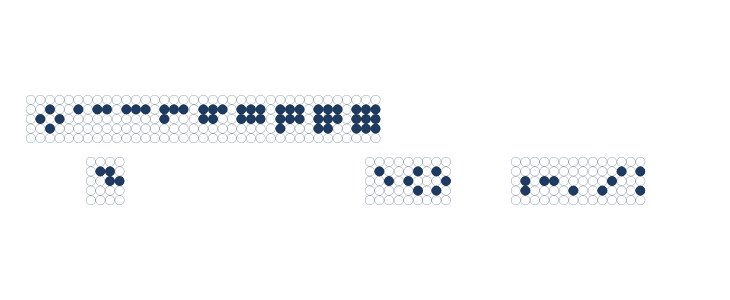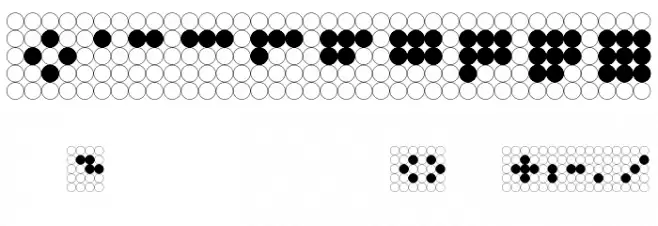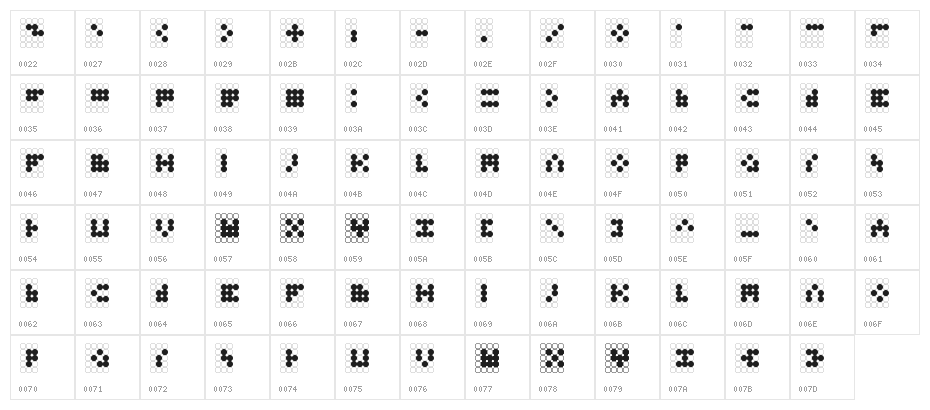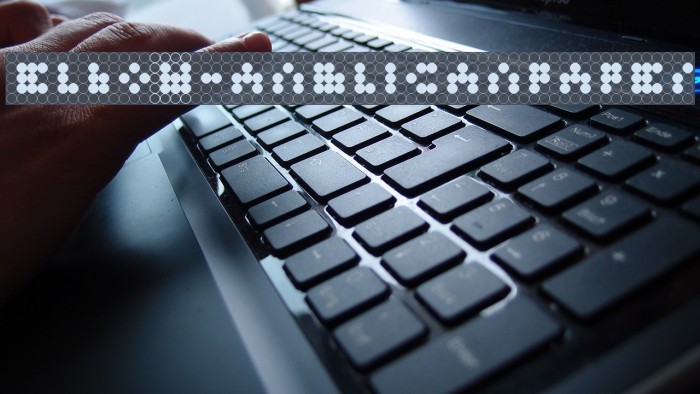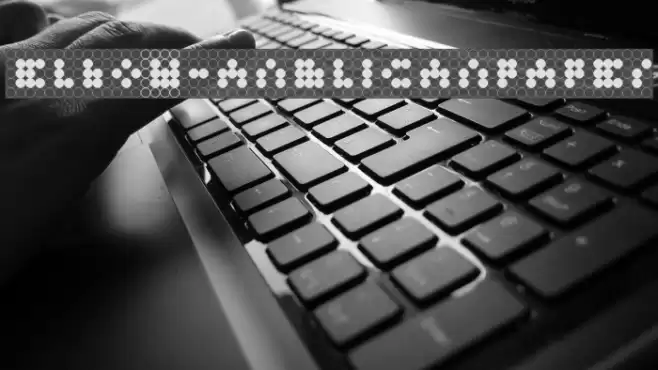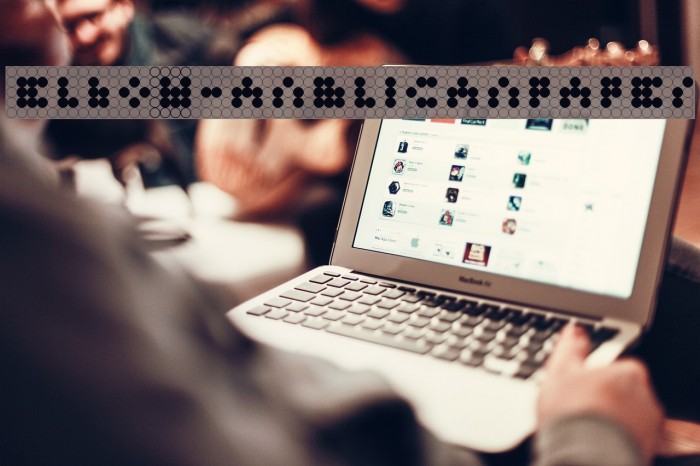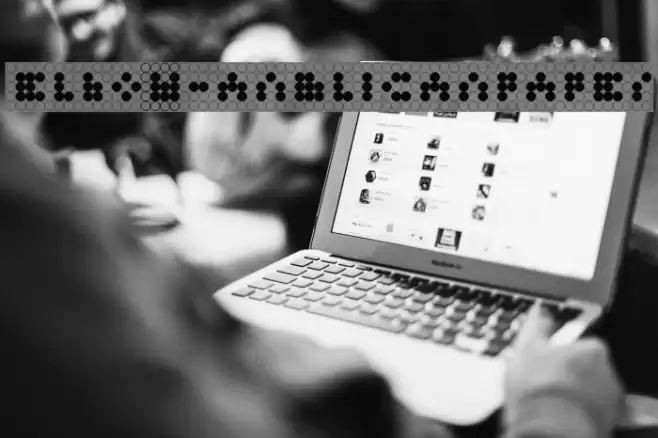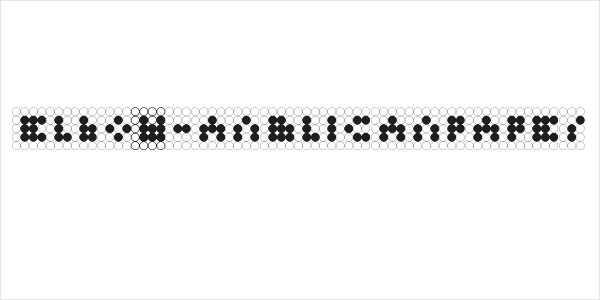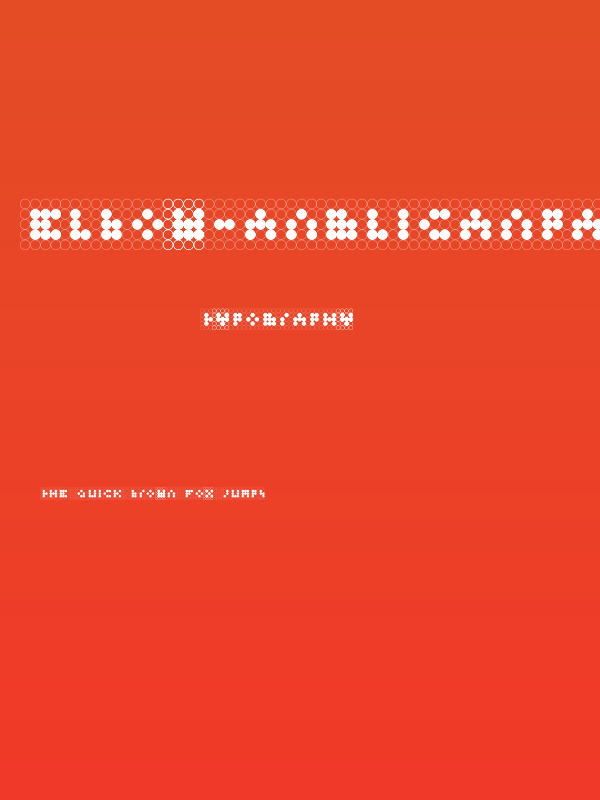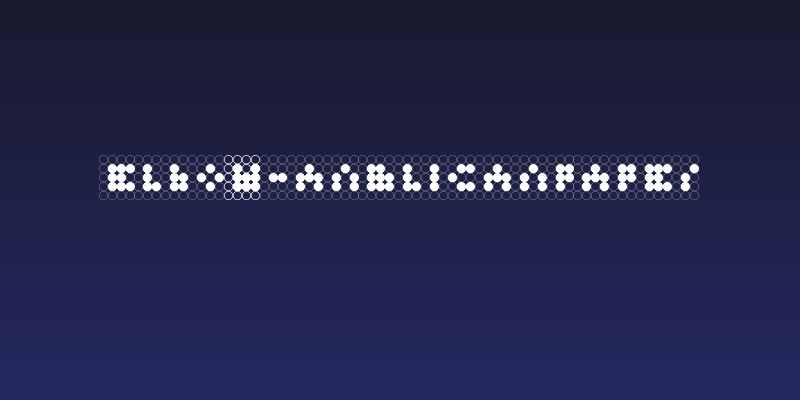
Elbow-AnglicanPaper Font
Elbow-AnglicanPaper Description
This font features a unique dot matrix style, where each character is composed of a grid of dots. The design is reminiscent of old digital displays or LED screens, giving it a retro, tech-inspired aesthetic. The characters are formed by filling in specific dots within the grid, creating a pixelated appearance. This style is both playful and functional, making it suitable for creative and modern design projects. The uniformity of the dot grid ensures consistency across all characters, while the boldness of the filled dots provides clear readability.
| Overall Style | Retro, Tech-inspired |
| Use Case | Headlines, Logos, Digital displays |
| Proposed Projects | Ideal for digital displays, tech-themed designs, retro posters, and creative branding. |